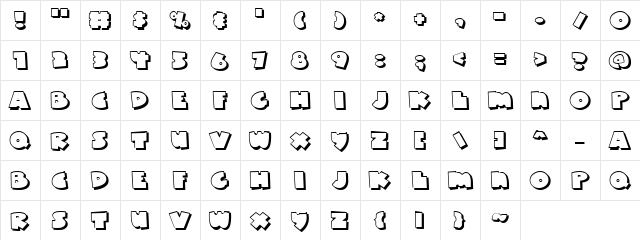
LD Chubby Regular Free Font
LD Chubby Regular
Design Context for LD Chubby
LD Chubby is a composed and adaptable typeface that performs quietly and consistently across a wide range of design contexts.